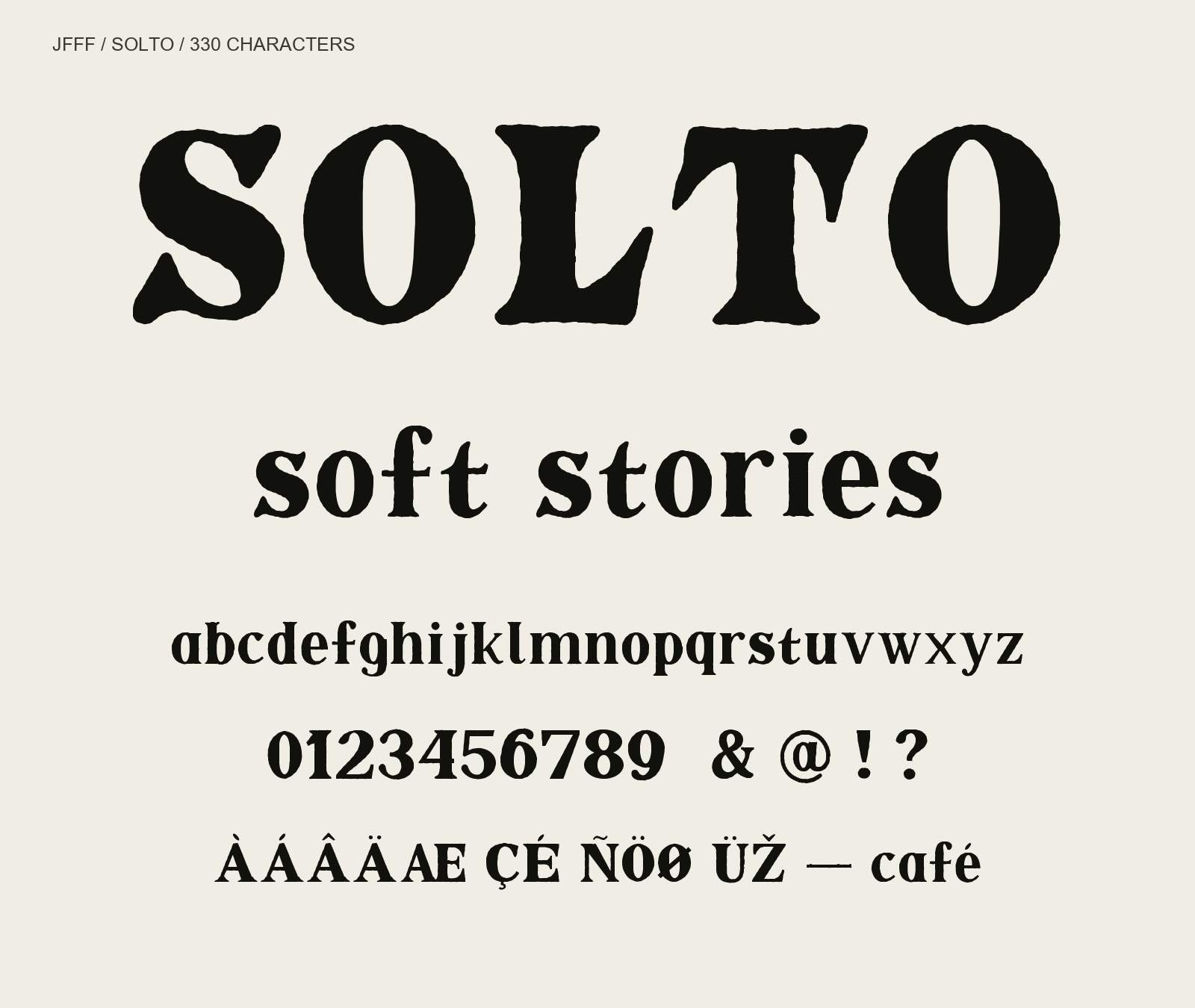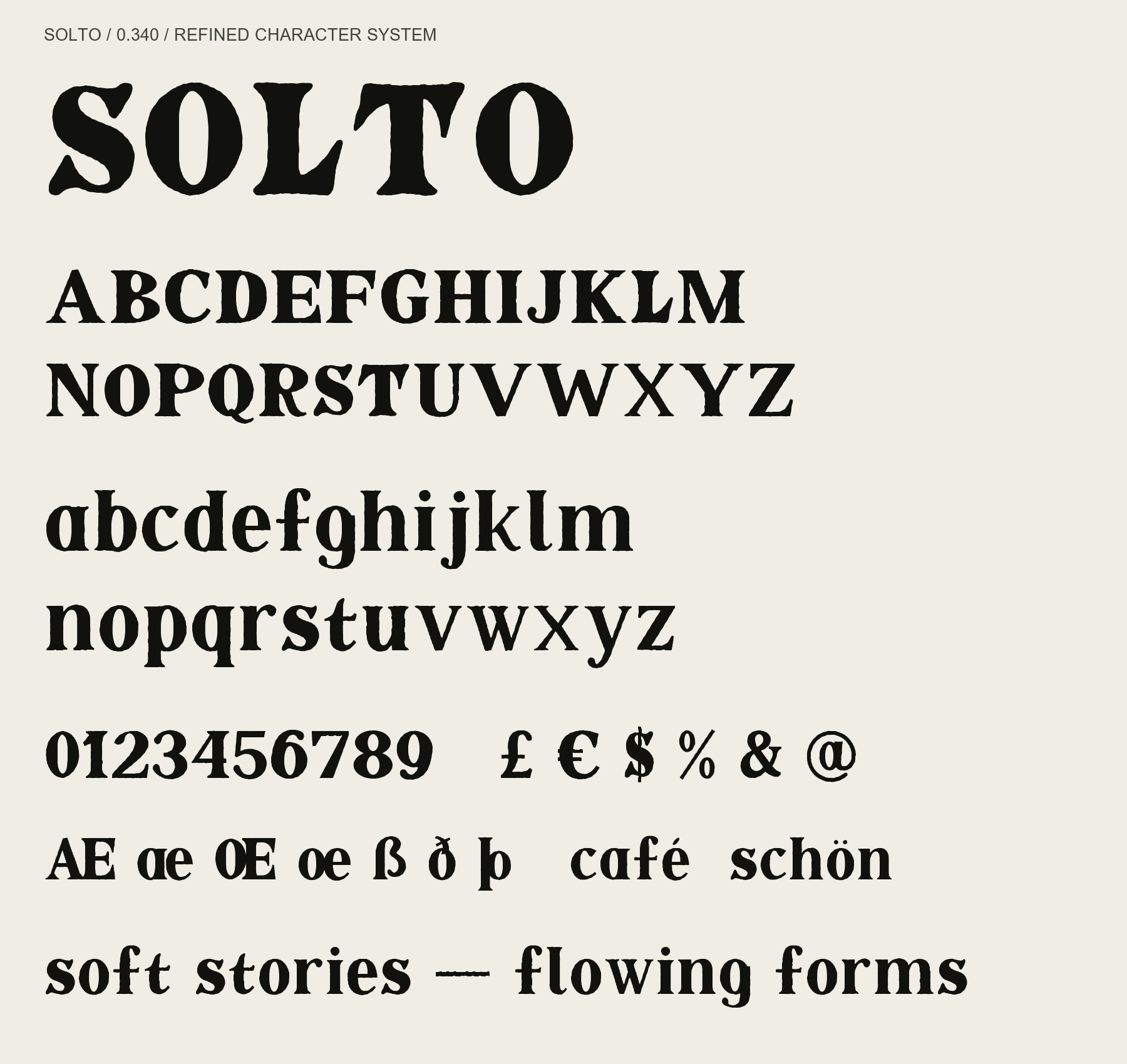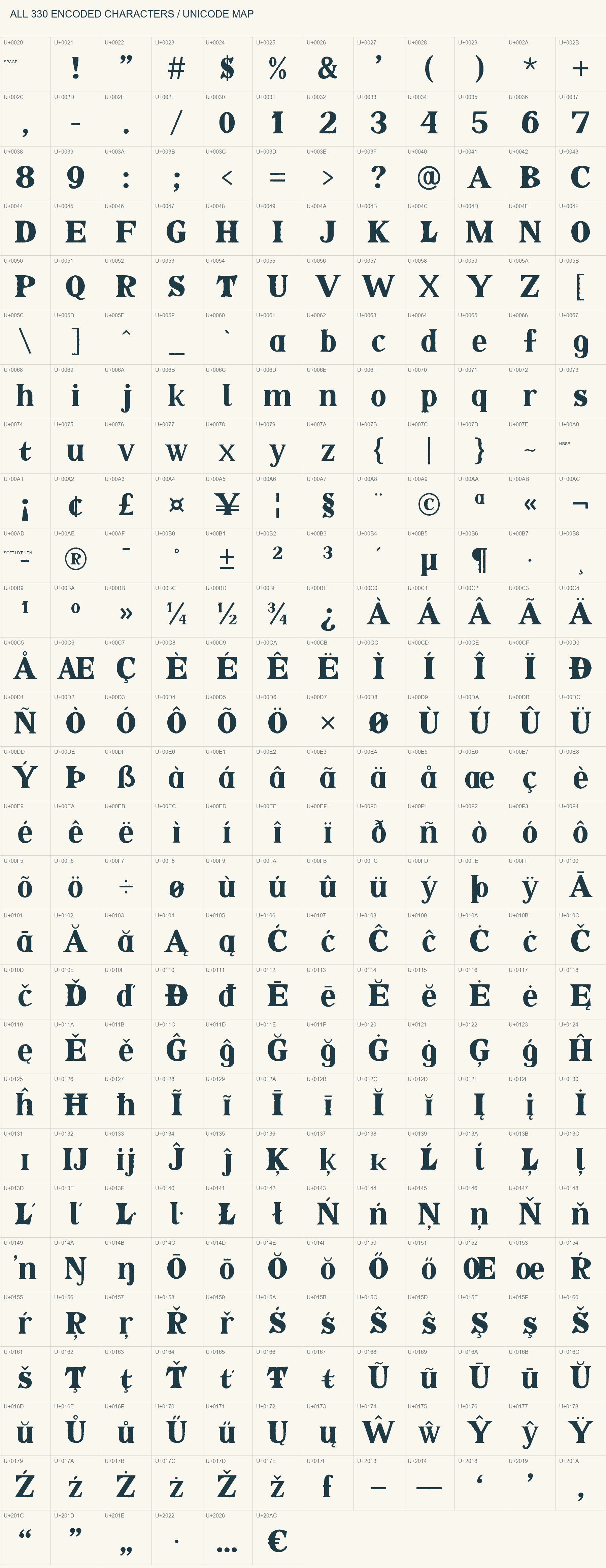
Object Latin
Free high-contrast serif font
SOLTO bold display serif with subtly irregular edges: SOLTO, soft stories.
Soft stories, expressive edges. SOLTO is a bold display serif with strong stroke contrast, narrow oval counters, gently flared serifs and subtly irregular printed outlines. Its lowercase, figures and punctuation extend the same character into a complete Latin set. Designed for editorial headlines, posters and expressive packaging. Version 0.340 includes 330 encoded characters and 331 glyphs: printable Basic Latin, Latin-1, Latin Extended-A and 11 additional punctuation characters. Start at 48 pt or 64 px. All characters were reviewed in enlarged specimens; export contour intersections were repaired and 3,844 Latin letter/number pairs were checked for collisions. Download includes TTF and SIL OFL 1.1. Accented Latin uses precomposed characters; Hangul and independent combining marks are not included. Design preview: native editing-app installation and print workflows have not been verified.